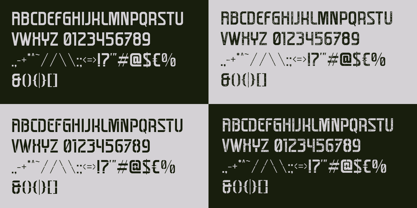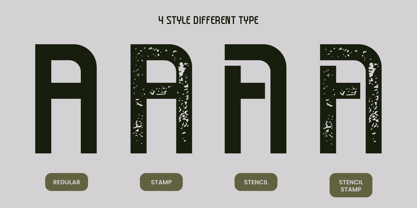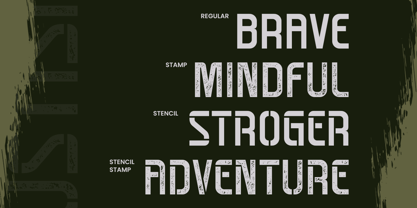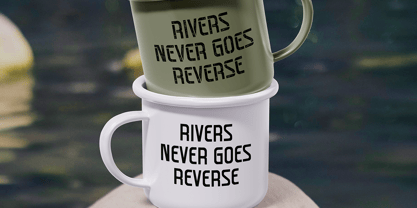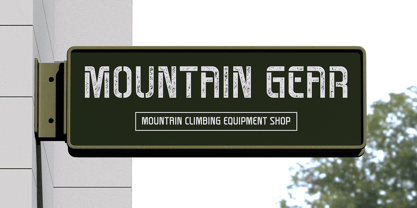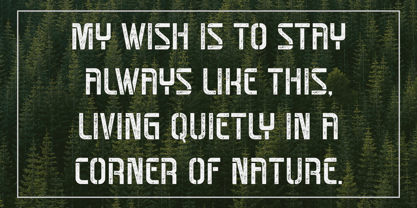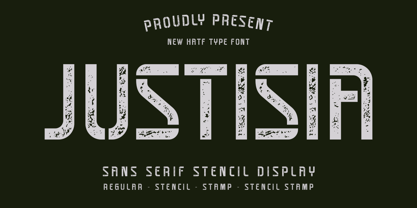
Justisia
by Hatftype
The Justisia Font Family was designed by Asep Rendi and published by Hatftype. Justisia contains 4 styles and family package options. More about this family
Immerse yourself in the rugged charm of Justisia, a mightily impressive sans serif display font. Bursting with power and authority, Justisia is the masterstroke your visual designs have been missing. This four in one typeface introduces :
The Regular - a sleek and modern style exuding professionalism, dedicated to headlines, branding, and any editorial designs emphasizing on readability.
The Stencil - a strikingly unique cut design that teems with functionality. Its tactical feel makes it a go-to for military and industrial-themed designs or any project crying out for a commanding, dynamic presence.
The Stamp - a style that hints of the rough-hewn texture of stamps or hand-drawn artistry. Perfect for injecting a vintage vibe, this style is ideal for creating retro posters, labels, and packaging designs.
The Stencil Stamp - a fusion of stencil cuts and stamp effects, this style evokes a raw, edgy, and mightily powerful impression. It's the perfect fit for design projects aiming to sport a brazen, uncommon visual identity.
With Justisia, you're not merely choosing a font, you're making a visual declaration. Whether it's for branding, poster designs, editorials, signage, clothing, or digital designs, let Justisia be the voice of your creative statement and help you make your mark with undeniable authority.